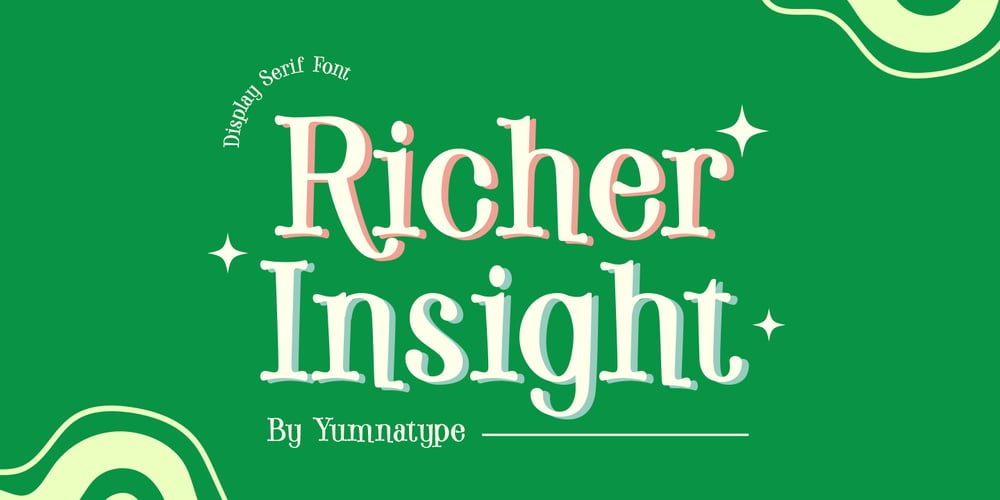
Richer insight Font Family was designed by Donis Miftahudin and published by Yumna Type. Richer insight contains 1 styles and family package options. Richer Insight is a refined serif display font that exudes sophistication and elegance, perfect for projects seeking a touch of timeless charm. With its sleek design and classic proportions, this font adds a sense of refinement and authority to any design project.Each letter in Richer Insight is meticulously crafted with clean lines and precise serifs, exuding a sense of grace and sophistication. The generous spacing and balanced proportions of the font ensure clarity and readability in any size. In addition, enjoy the features here.Features: Multilingual Supports PUA Encoded Numerals and Punctuations Richer Insight fits in headlines, logos, posters, flyers, branding materials, print media, editorial layouts, and many more designs. Find out more ways to use this font by taking a look at the font preview.Thanks for purchasing our fonts. Hopefully, you have a great time using our font. Feel free to contact us anytime for further information or when you have trouble with the font. Thanks a lot and happy designing.